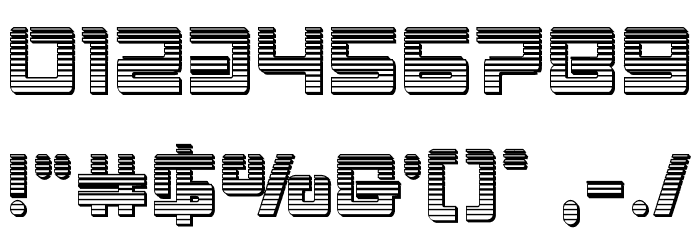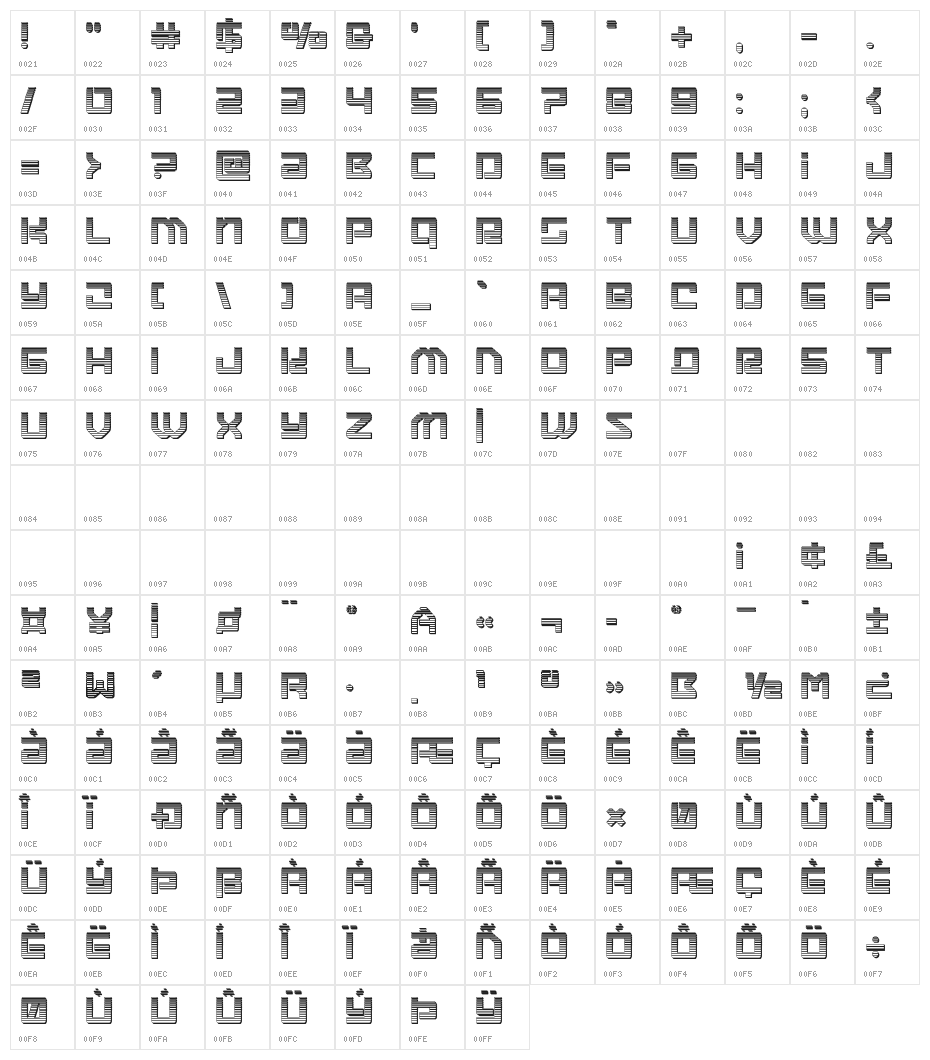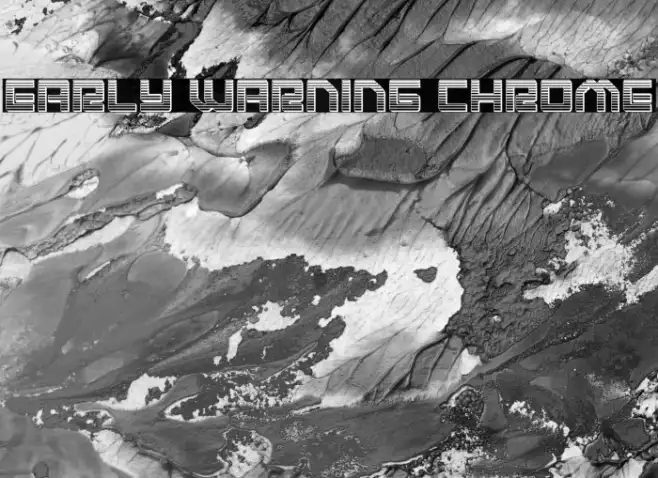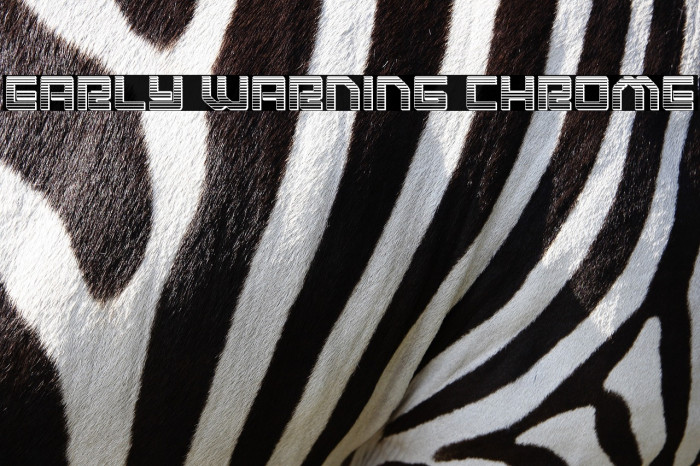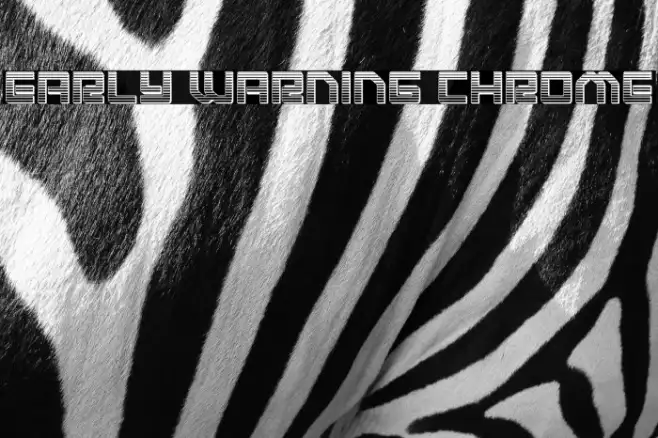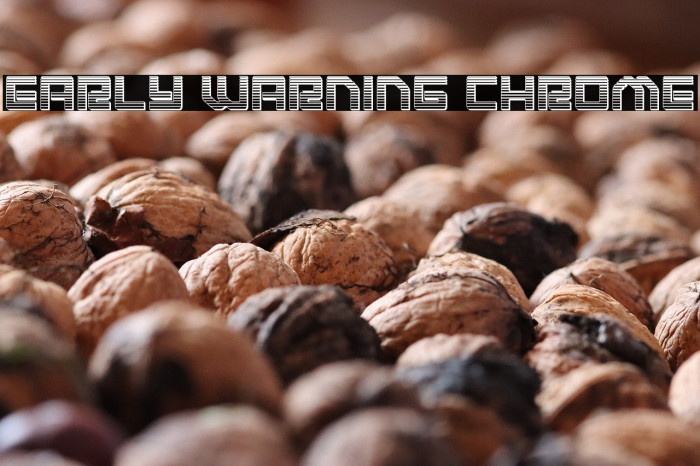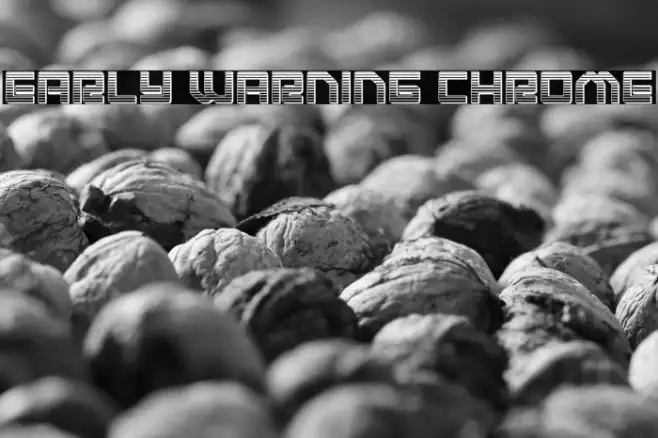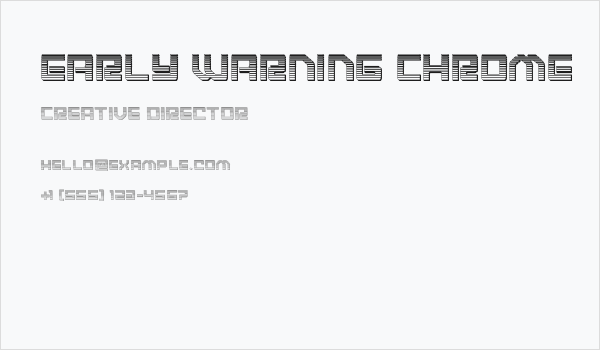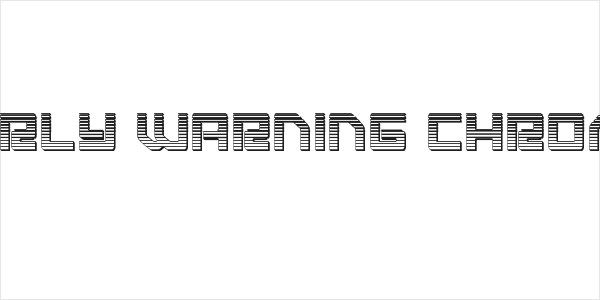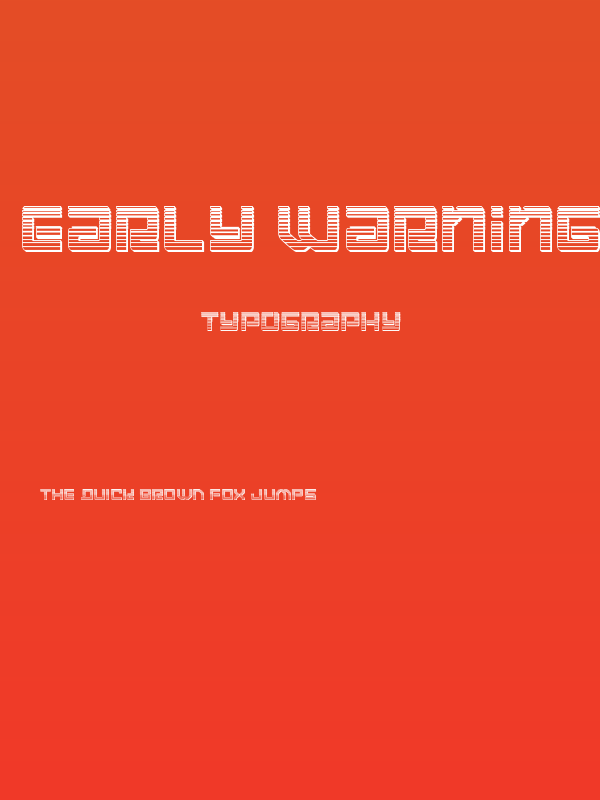
Early Warning Chrome Font
Early Warning Chrome Description
This font features a bold, futuristic design with a distinct striped pattern running horizontally across each character. The geometric structure and uniform line thickness give it a modern, industrial feel. The uppercase and lowercase letters share a consistent style, with sharp angles and clean lines. Numbers and special characters are equally stylized, maintaining the cohesive aesthetic. The font's unique appearance makes it stand out, ideal for projects that require a strong visual impact.
| Proposed Projects | Ideal for sci-fi themed projects, technology branding, video game titles, and futuristic posters. |